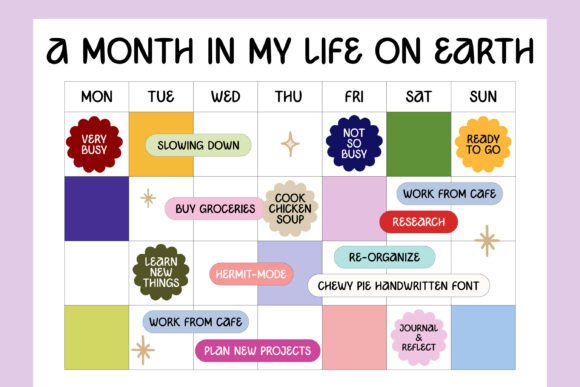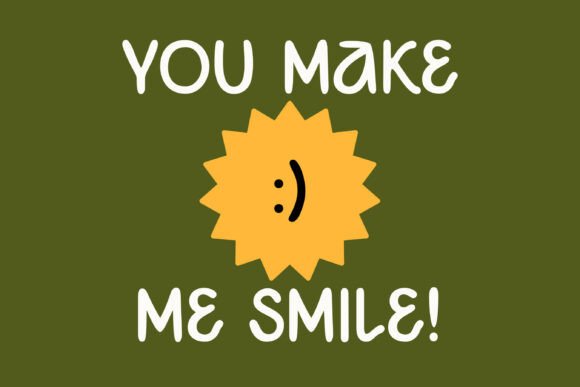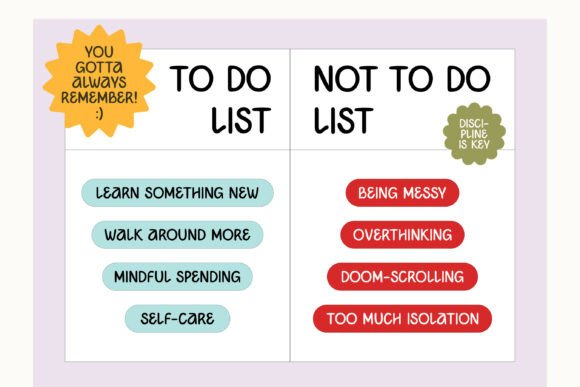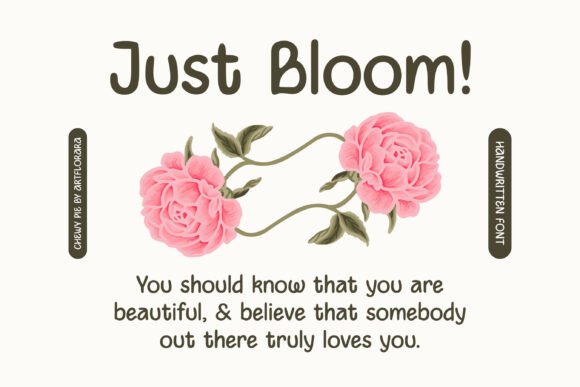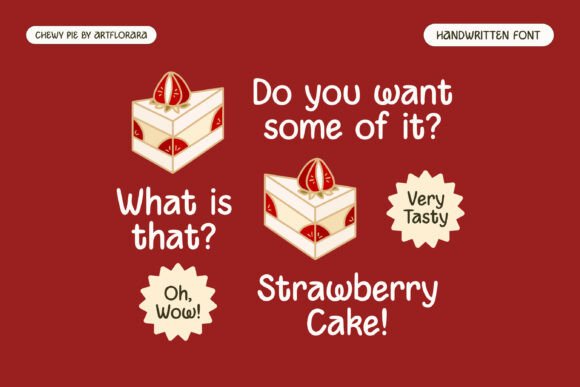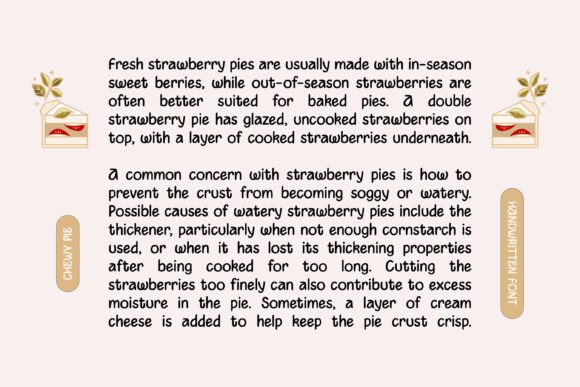
Introduction to Chewy Pie Font
Have you ever found yourself browsing through a trendy bakery or a quaint ice cream shop, and the first thing that catches your eye is the adorable handwritten font used in their branding? That’s exactly what happens when you introduce the Chewy Pie Font into your creative project – it instantly adds a touch of warmth and personality.
As a designer, you’re always on the lookout for high-quality design resources that can elevate your work and make it stand out. The Chewy Pie Font is a free download that’s perfect for food packaging, children’s menu designs, and vibrant social media headlines. With its transparent background and bold weight, it’s a versatile choice for any creative endeavor. Whether you’re working on a local business’s branding or a series of educational posters, the Chewy Pie Font is sure to bring a sense of comfort and playfulness to your design.
Key Features of Chewy Pie Font
- High-quality, free font download for creative projects, ideal for designers and artists.
- Transparent background, allowing for easy customization and seamless integration with design elements.
- Unique, hand-crafted design with a distinctive style, perfect for adding a personal touch to creative projects.
- Designed to be versatile and adaptable, suitable for a wide range of creative projects, from logos and branding to graphics and typography.
Honest Review: Chewy Pie Font
I recently stumbled upon the Chewy Pie Font and was excited to dive in and see what it had to offer. As a designer, I’m always on the lookout for high-quality design resources that can help me bring my creative projects to life.
- ✨ The font is incredibly versatile and can be used for a wide range of creative projects, from logos to brochures.
- ✨ The transparent background option allows for seamless integration with any design element.
- ⚠️ The font may not be suitable for large-scale text due to its somewhat playful nature.
- ⚠️ Some users may find the font to be too quirky or unconventional for certain design projects.
Overall, I’m impressed with the Chewy Pie Font and would definitely recommend it for any designer working on a creative project that requires a fun and playful touch. While it may not be the best choice for every design task, it’s a valuable addition to any design resource library.
The Chewy Pie Font is a unique and versatile design resource that can add a personal touch to any creative project. This high-quality font is available for free download and can be used on a transparent background, making it perfect for adding text overlays to your designs.
The Chewy Pie Font is perfect for a variety of creative projects, including:
- Blogging and content creation
- Graphic design and visual art
- Marketing and advertising
To get the most out of the Chewy Pie Font, try using it in combination with other design resources, such as high-quality images and graphics. You can also experiment with different font sizes, colors, and styles to create unique and eye-catching text elements.